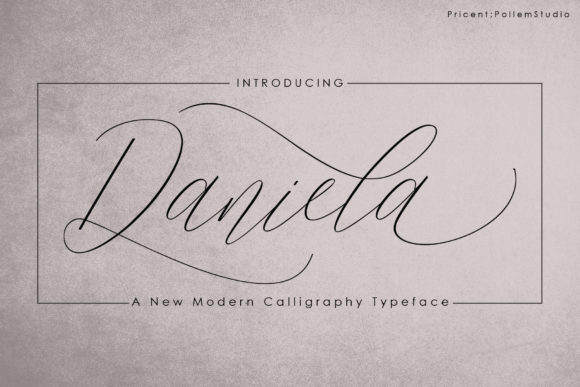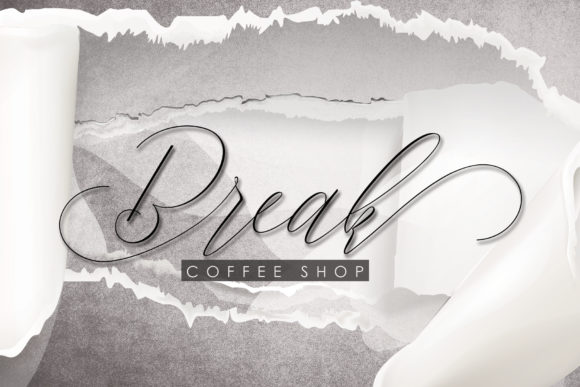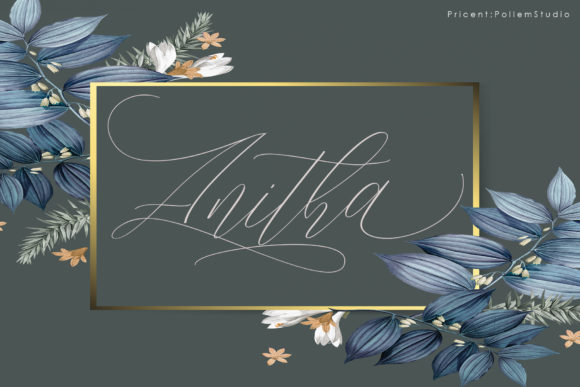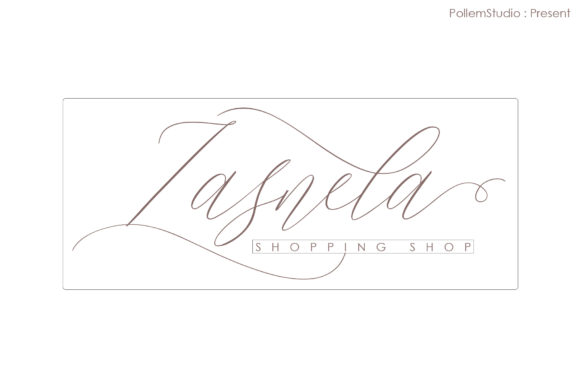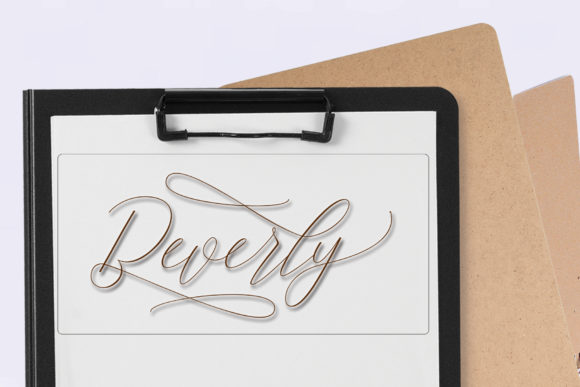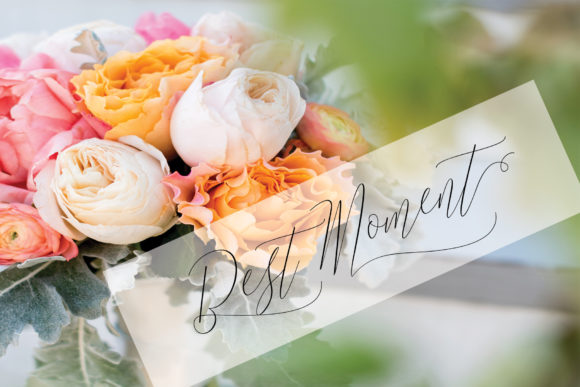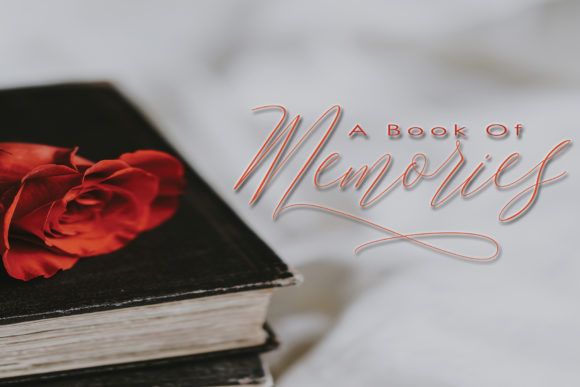
HomeScript FontsDaniela Font Script Fonts Daniela Font FacebookXPinterestWhatsApp Daniela Font Poster 2 Daniela Font Poster 3 Daniela Font Poster 4 Daniela Font Poster 5 Daniela Font Poster 6 Daniela Font Poster 7 Daniela Font Poster 8 About Daniela Font Daniela is a classic and light handwritten font with a unique twist. Get inspired by its timeless appeal. DOWNLOAD NOW People also explored Riverdale Font Kinetica Font Good Day Font Cutie Santa Claus Font Adenita Cyfena Font Pignatelli Script Font Asteria Root Font Montosal Font Antonio Santai Font 349 0 TagsDaniela Font Previous articleDarling FontNext articleSweet Baby Font LEAVE A REPLY Cancel reply Comment: Please enter your comment! Name:* Please enter your name here Email:* You have entered an incorrect email address! Please enter your email address here Website: Save my name, email, and website in this browser for the next time I comment. Personal Use Free Amrina Personal Use Free Read more about this font Baveuse Personal Use Free Read more about this font The Winter Personal Use Free Read more about this font Blue Highway Personal Use Free Read more about this font BLOG 5 Fonts That Will Dominate Design Trends in 2026 5 Fonts for 2026 That Will Dominate Design Trends Typography plays a critical role in visual communication, and as we look ahead to 2026, it’s... Best Fonts for YouTube Videos: Make Your Thumbnails Stand Out Top 7 Google Fonts Alternatives for Faster and Privacy-Friendly Web Design (2025) Using Fonts in Digital Marketing: Tips to Strengthen Your Brand Identity